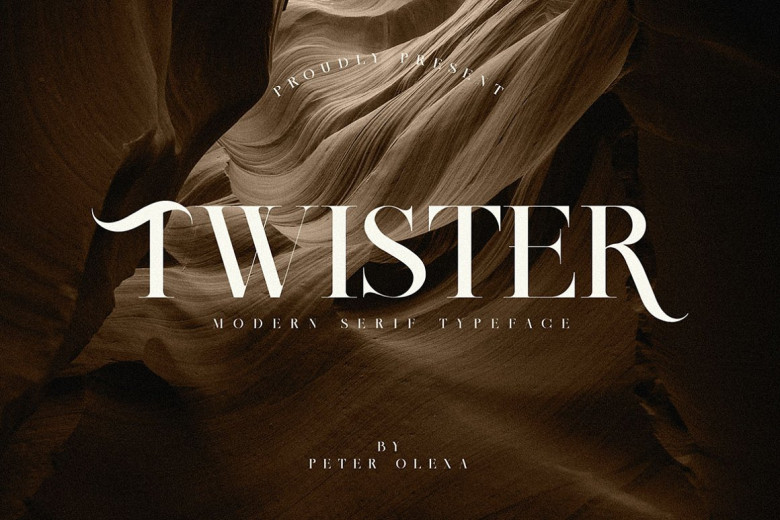
Twister Font
Twister Decorative Serif Unique fancy, modern, vintage & decorative serif font. Comes with multilingual support & ligatures – perfect for your new logo and branding project.
Twister Modern Serif Font